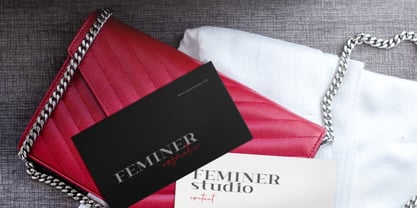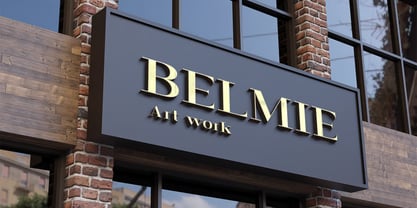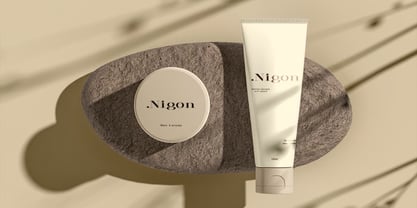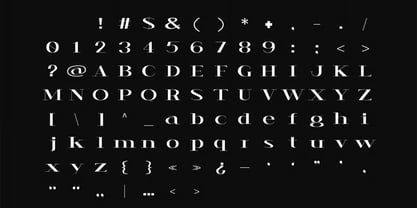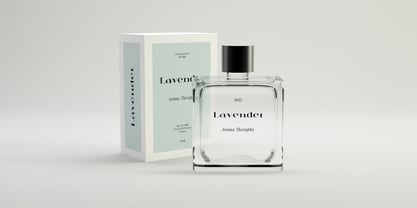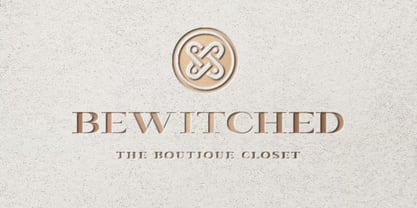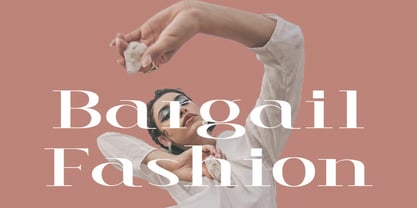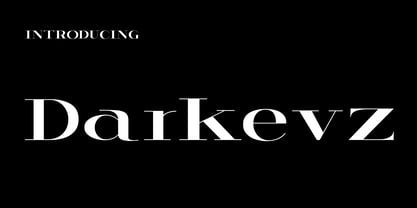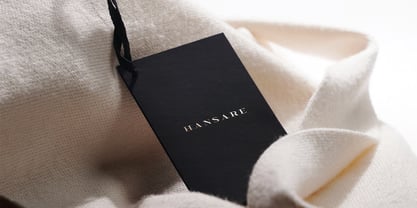
Darkevz
by Hasnat Studio
The Darkevz Font Family was designed by Hasnat Khan and published by Hasnat Studio. Darkevz contains 1 styles. More about this family
Darkevz is a modern premium serif font expertly crafted to deliver timeless elegance, contemporary sophistication, and fashion-inspired style. Designed with refined proportions, graceful letterforms, and a luxurious editorial aesthetic, Darkevz is the perfect typeface for designers seeking to create memorable branding and visually striking typography.
Inspired by high-fashion magazines and premium branding, Darkevz combines classic serif craftsmanship with modern minimalism, making it ideal for projects that demand elegance, professionalism, and a distinctive visual identity. Its balanced structure ensures excellent readability while maintaining a bold, luxurious presence that captures attention across both print and digital media.
Whether you're designing luxury logos, magazine covers, fashion campaigns, beauty packaging, boutique branding, or premium social media content, Darkevz transforms every design into a sophisticated visual masterpiece.
• Modern Premium Serif Design: Elegant letterforms with a refined and contemporary aesthetic.
• Luxury Editorial Style: Inspired by high-end fashion magazines and premium branding.
• Uppercase & Lowercase Characters: Complete alphabet for versatile typography.
• Numbers & Punctuation: Full character set for professional design projects.
• Balanced & Readable Letterforms: Perfect for both display and branding applications.
• Timeless Luxury Appeal: Combines classic serif elegance with modern sophistication.
• Optimized for Print & Digital: Crisp performance across all creative platforms.
• Luxury Branding & Logo Design: Build elegant and unforgettable brand identities.
• Fashion Editorials & Magazine Covers: Perfect for headlines, articles, and premium layouts.
• Beauty & Cosmetic Packaging: Create luxurious product presentations.
• Boutique & Lifestyle Branding: Enhance premium retail and fashion businesses.
• Wedding Invitations & Stationery: Add timeless elegance to special occasions.
• Book Covers & Publishing: Elevate novels, journals, and editorial projects.
• Advertising & Marketing Campaigns: Design sophisticated promotional materials.
• Social Media Graphics: Create premium content that stands out online.
Elevate your creative vision with Darkevz—a modern premium serif font designed for luxury branding, fashion editorials, magazine headlines, boutique logos, premium packaging, beauty brands, wedding stationery, and sophisticated visual identities. Create timeless designs that embody elegance, exclusivity, and professional excellence.